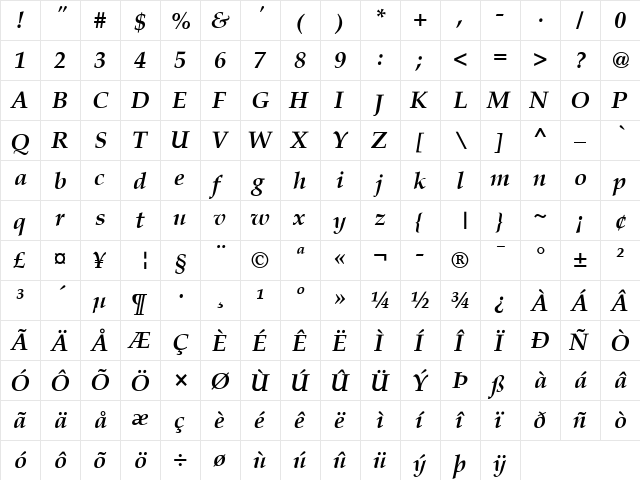
URW Palladio L Regular
| Foundry | by URW |
Design Context for URW Palladio L Typeface
URW Palladio L is a composed and adaptable typeface that performs quietly and consistently across a wide range of design contexts.